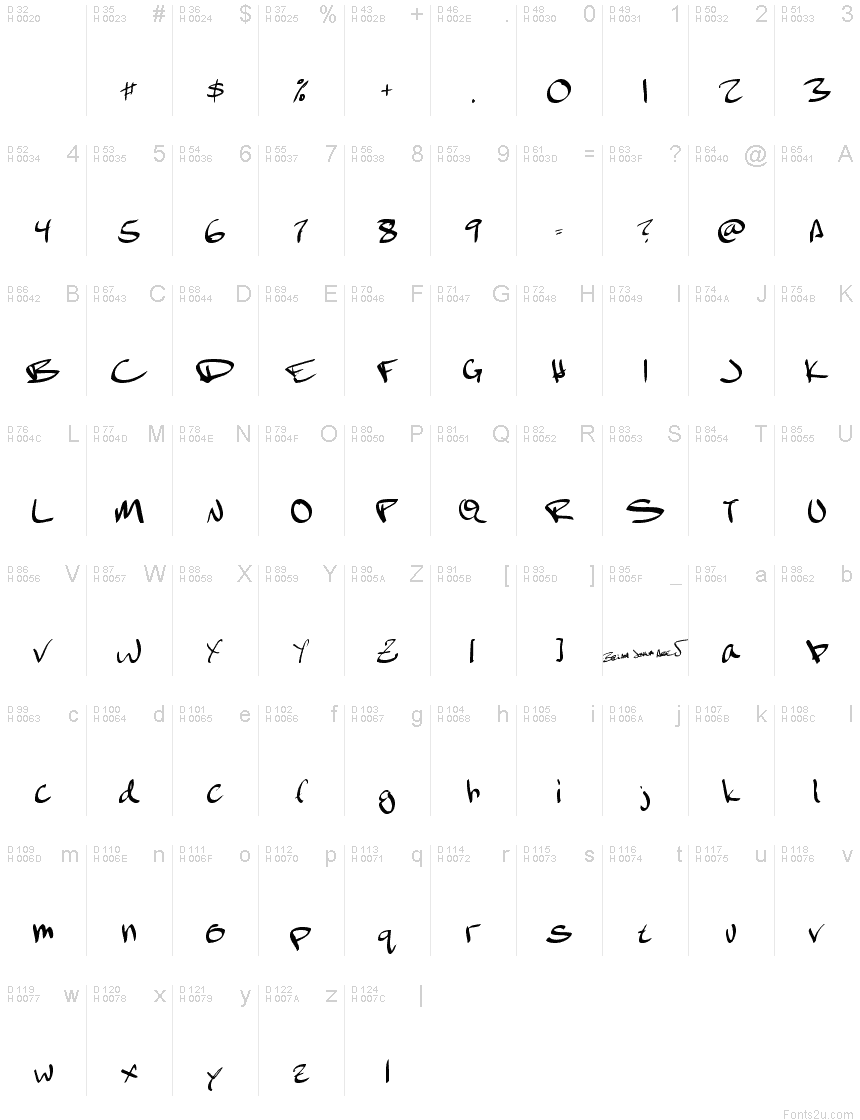
february handwritten
this is my own handwriting converted to a font.
don't be too hard on it, the kerning is a little off.. i know. i had to make it readable.